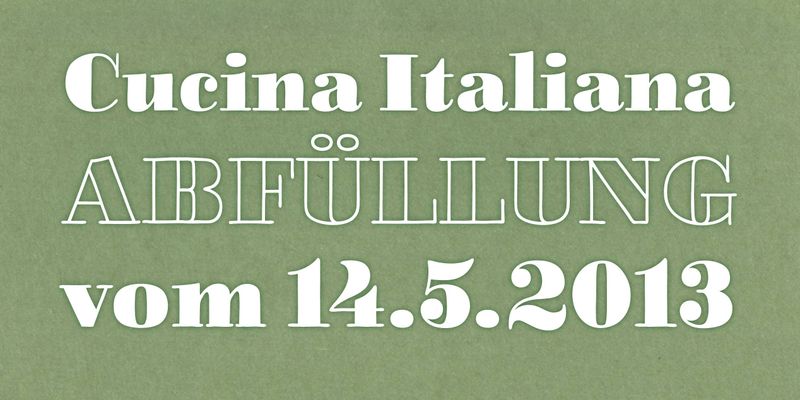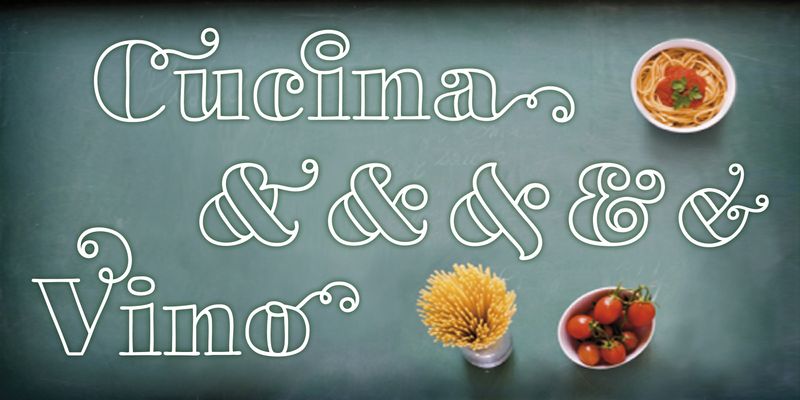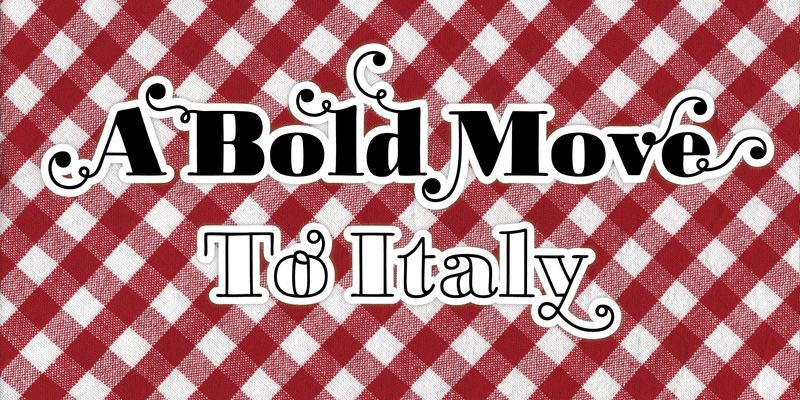
LiebeDoni is pure Italian art.
A contemporary nod to Italian typographic heritage, LiebeDoni’s warm and friendly style is perfect for—literally—bold headlines and impressive invitations.
Take a seat on LiebeDoni’s Vespa and enjoy the sweet curves of dolce far niente. But don’t let the relaxed hand-crafted appearance fool you: You’re dealing with a solid quality typeface that has received painstaking attention to detail.
Round like the Colosseum, some lines are as colloquial as the Tower of Pisa—but all this with almost Teutonic obsession for technical perfection.
Feature-wise, we went the full quattro stagioni: Variations and alternatives for many letters, swashy initials and swirly ligatures—plus language support that goes way beyond English and Italiano.
Get both the outline and the filled version and go crazy on creative layering and endless possibilities. Each font contains over 600 glyphs and both contain the full character set.